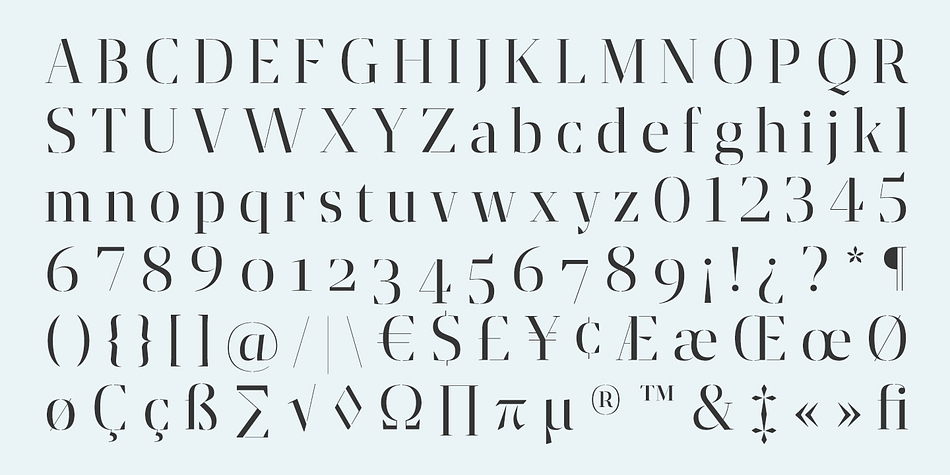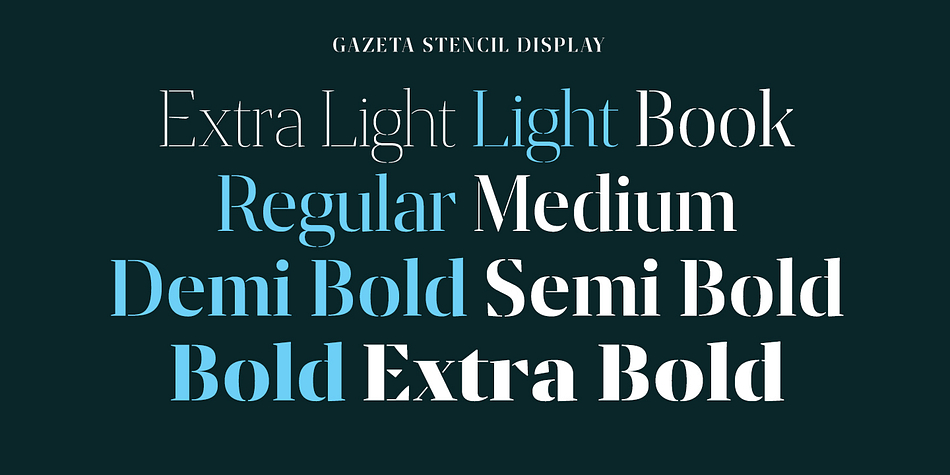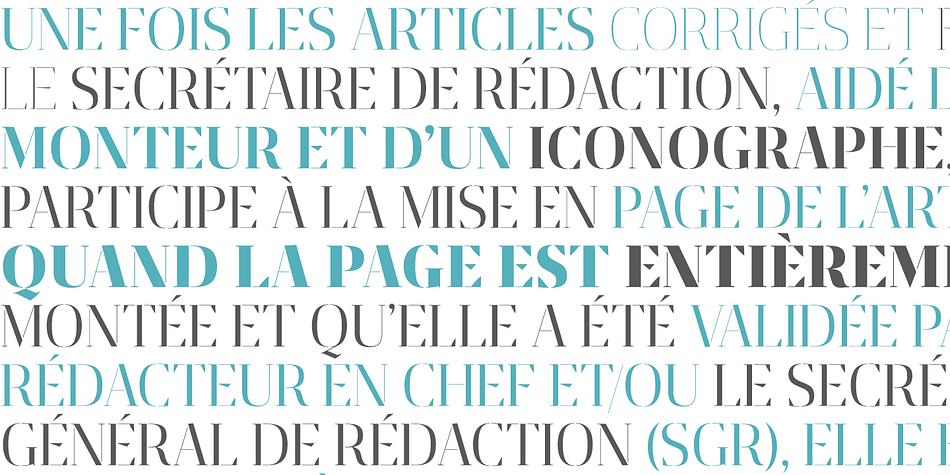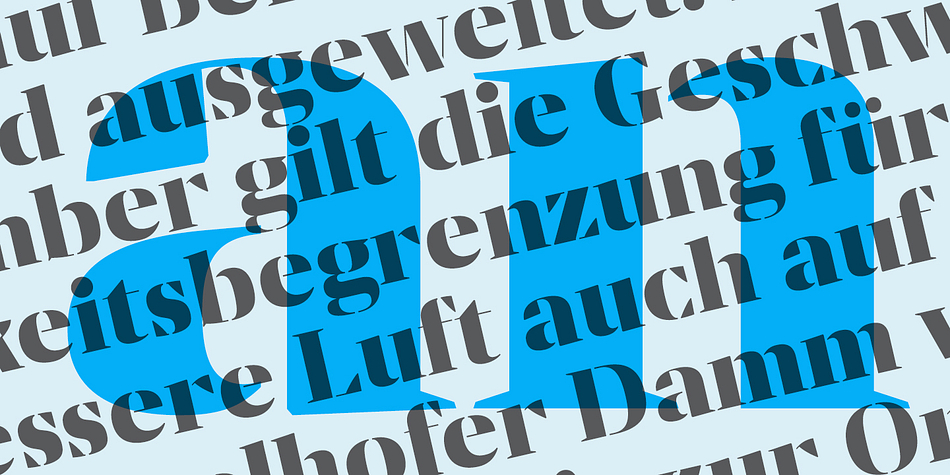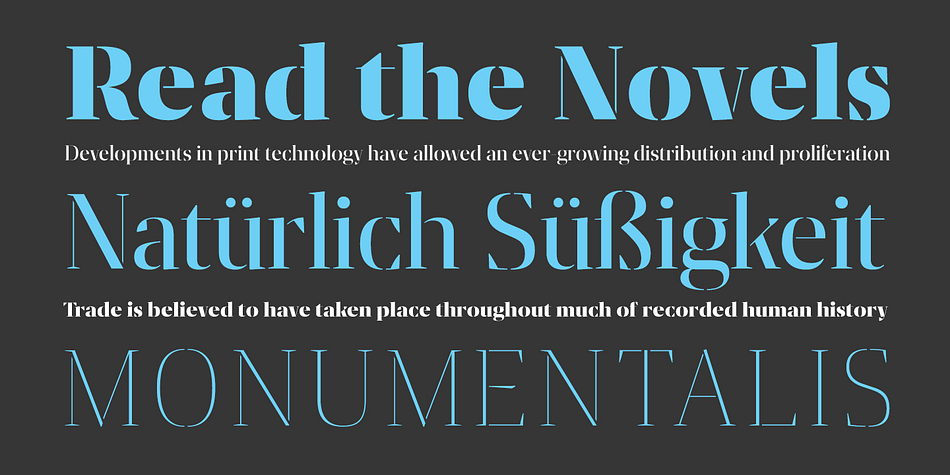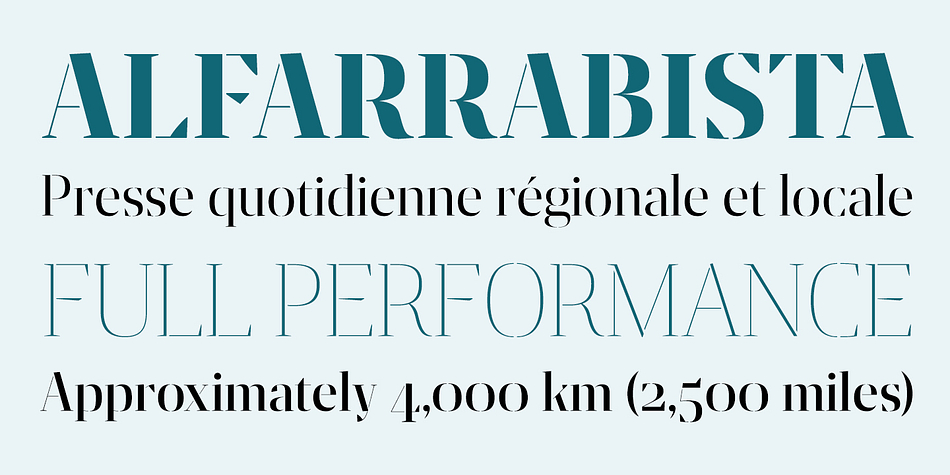
Designed by Ricardo Santos, Gazeta Stencil Display is a stencil font family. This typeface has nine styles and was published by Vanarchiv.
This display stencil typeface is extension from Gazeta font family, where the letterform cuts are more mechanical without loosing their own natural structure. Italic versions are not available, only roman characters.